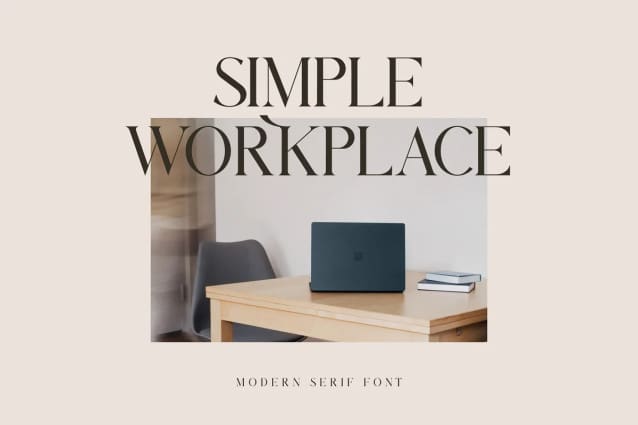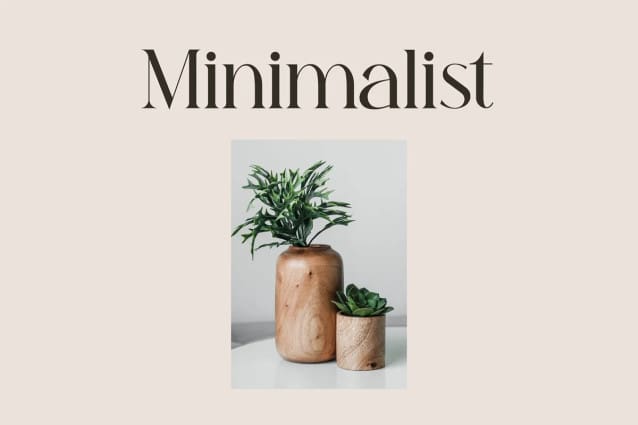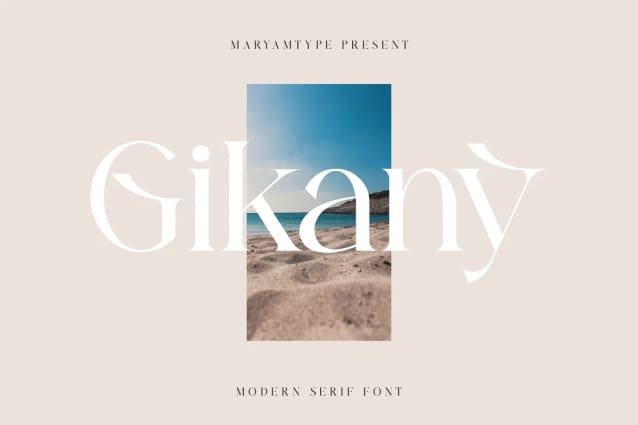
Gikany Font
Gikany Font – Modern Serif Font, created by Maryamtype Studio, a Modern serif typeface that has a unique modern style & look. This typeface is perfect for elegant & luxurious logos, book or movie title designs, fashion brands, magazines, clothing, fonts, quotes and more.